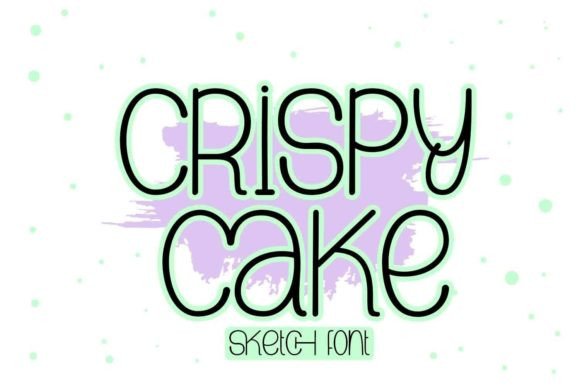
Crispy Cake: A Versatile Sketch Font for Creative Expression
In a world where visual communication is more important than ever, the right font can make all the difference. Crispy Cake is a natural yet simple sketch font that stands out for its bold, playful, and expressive style. Its big, long appearance gives it a distinctive look that can elevate any design project. Whether you're creating something for children or aiming for a whimsical aesthetic, Crispy Cake offers a unique way to convey creativity and personality.
What Makes Crispy Cake Unique?
Crispy Cake is not just another font; it's a tool that brings a sense of spontaneity and charm to your work. The font's sketch-like quality mimics hand-drawn text, making it ideal for projects that require a personal touch. Its simplicity doesn't mean it lacks character—on the contrary, the clean lines and rounded edges give it a friendly and approachable feel. This makes it particularly well-suited for designs targeting younger audiences or those looking to add a touch of fun to their visuals.
The font comes in several variations, allowing users to choose the style that best fits their needs. From casual to more structured versions, each variant maintains the core identity of Crispy Cake while offering flexibility for different applications. This adaptability ensures that the font remains relevant across a wide range of creative fields.
Crispy Cake in Modern Design Trends
As design trends continue to evolve, there's a growing emphasis on authenticity and individuality. Crispy Cake aligns with this shift by offering a font that feels genuine and unpretentious. In an era where digital tools often produce overly polished results, the handcrafted appeal of Crispy Cake provides a refreshing contrast. It resonates with designers who want to inject a sense of warmth and humanity into their work.
This trend is especially evident in the rise of minimalist and child-friendly aesthetics. Many brands and creators are moving away from rigid, formal styles in favor of more organic, expressive designs. Crispy Cake fits perfectly into this movement, providing a visual language that feels both modern and nostalgic. Its use in children's media, such as books and magazines, reflects this broader cultural shift toward more engaging and accessible content.
Practical Applications of Crispy Cake
The versatility of Crispy Cake makes it a valuable asset for a variety of projects. For instance, it's an excellent choice for kids' invitation cards, where its playful style can capture the attention of young guests. Parents and event planners can use it to create personalized invitations that feel more like a special treat than a standard announcement.
Birthday wishes and greeting cards also benefit from the font's expressive nature. Whether it's a heartfelt message or a lighthearted note, Crispy Cake adds a unique flair that sets it apart from conventional fonts. Its ability to convey emotion through typography makes it a go-to option for those looking to make their messages stand out.
For crafters and artists, Crispy Cake is a useful tool for sticker designs, labels, and other small-scale projects. Its bold appearance ensures that even small text remains legible and visually appealing. This makes it ideal for creating custom stickers, product labels, or decorative elements that need to be both functional and stylish.
Why Crispy Cake Matters in Today’s Market
With the increasing demand for personalized and unique content, fonts like Crispy Cake are becoming more valuable. Businesses and creators are constantly seeking ways to differentiate themselves in a crowded market, and typography plays a key role in this process. By using a distinctive font, they can create a stronger brand identity and connect more deeply with their audience.
Moreover, the rise of digital platforms has made it easier for individuals to experiment with design. Social media, blogs, and online stores all benefit from visually appealing content. Crispy Cake offers a way to enhance these platforms without requiring advanced design skills. Its ease of use and accessibility make it a popular choice among hobbyists and professionals alike.
How to Incorporate Crispy Cake into Your Work
If you're interested in using Crispy Cake, start by identifying the specific projects where its style would add value. For example, if you're designing a children's book, consider how the font can complement the overall tone and theme. Similarly, if you're creating promotional materials, think about how the font can help communicate your message in a more engaging way.
It's also important to experiment with different sizes and layouts. While Crispy Cake works well for large headlines, it can also be used effectively in smaller text when paired with the right design elements. Testing various combinations will help you find the best way to integrate the font into your workflow.
Finally, remember that the goal of using a font like Crispy Cake is to enhance the overall visual experience. Don't feel pressured to use it everywhere—instead, focus on situations where its unique qualities can truly shine. This thoughtful approach will ensure that your designs remain both effective and memorable.
As design continues to evolve, fonts like Crispy Cake will play an essential role in shaping the future of visual communication. By embracing this type of typography, you can stay ahead of the curve and create work that resonates with today's diverse and dynamic audience.